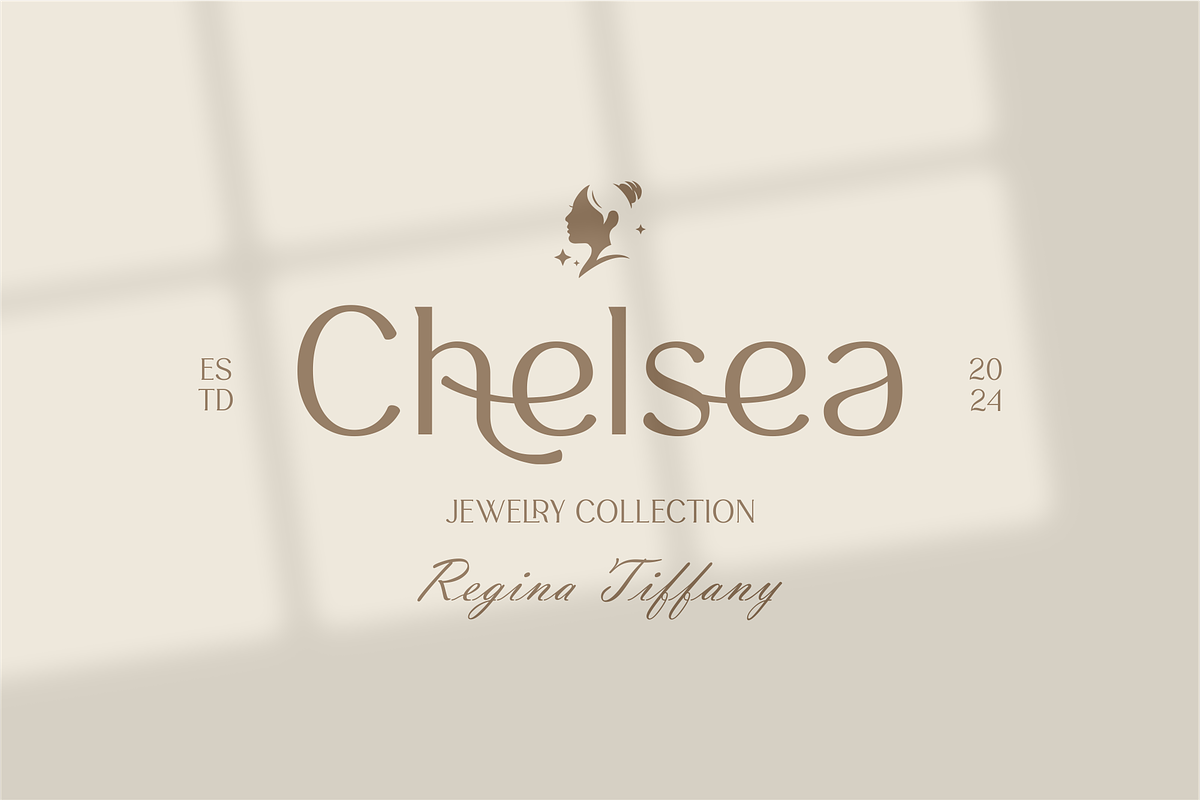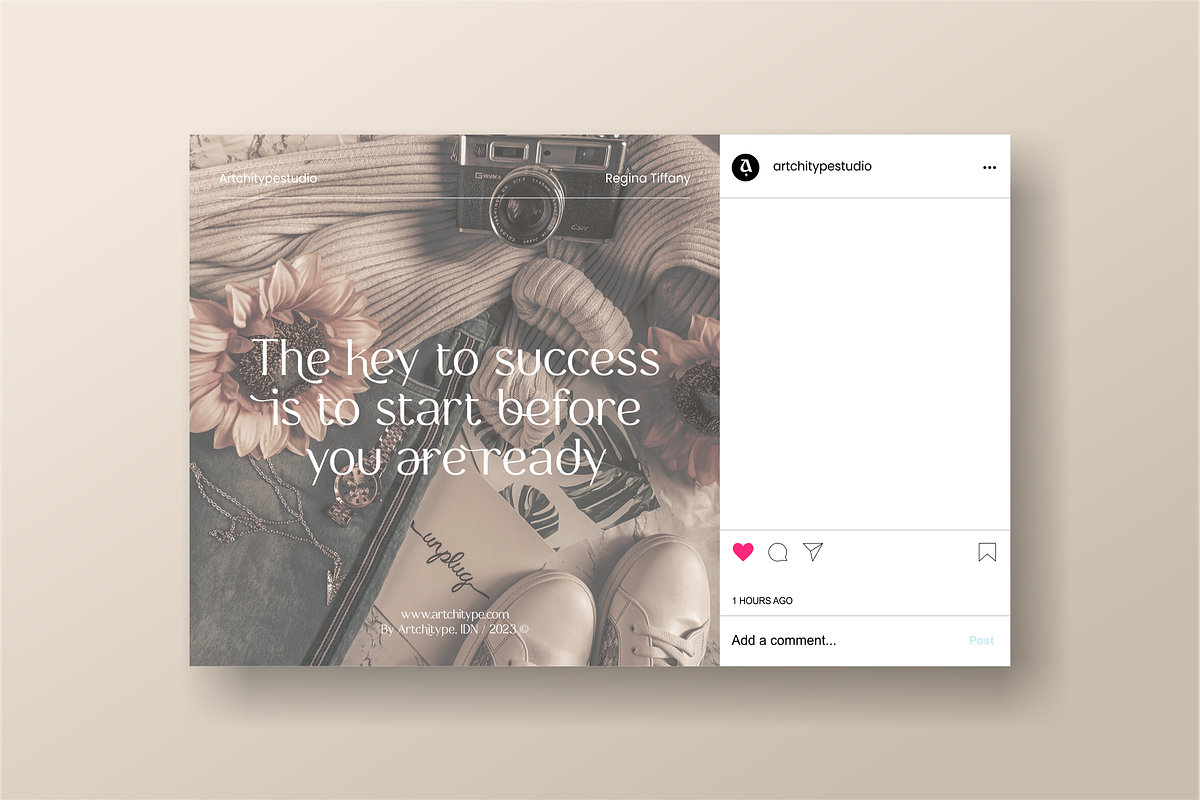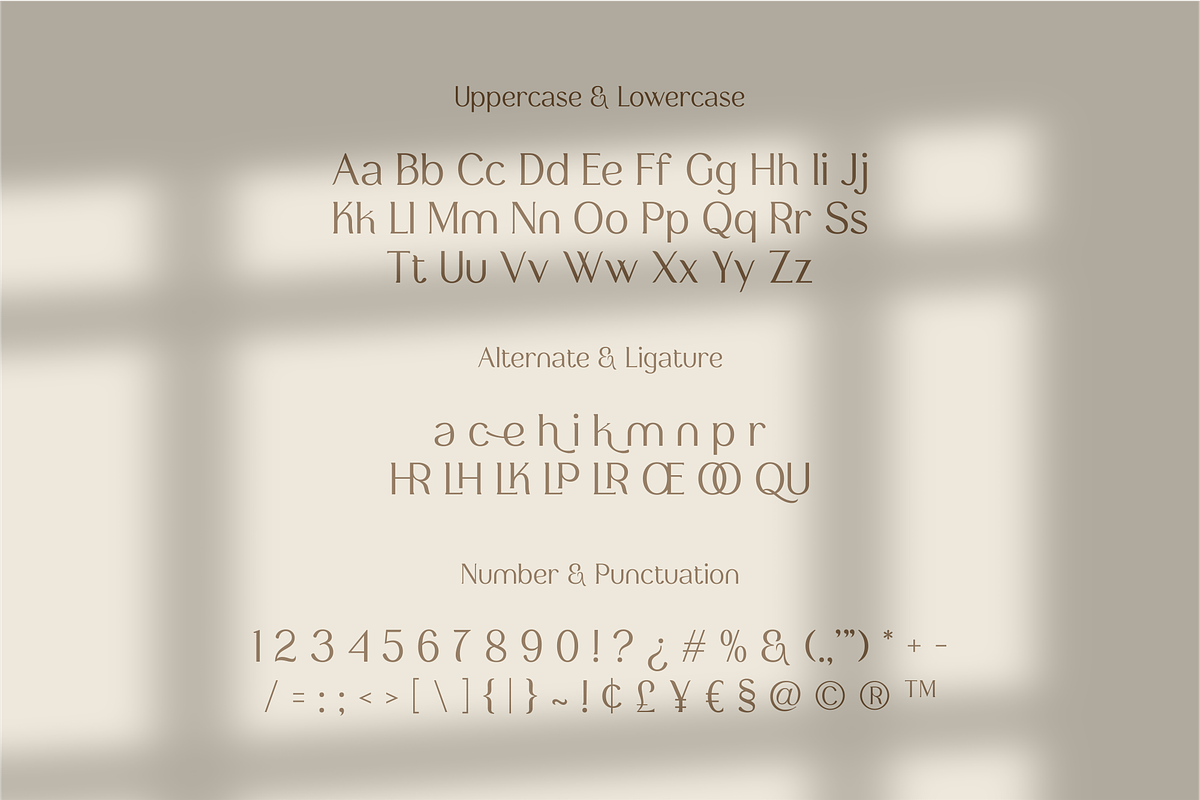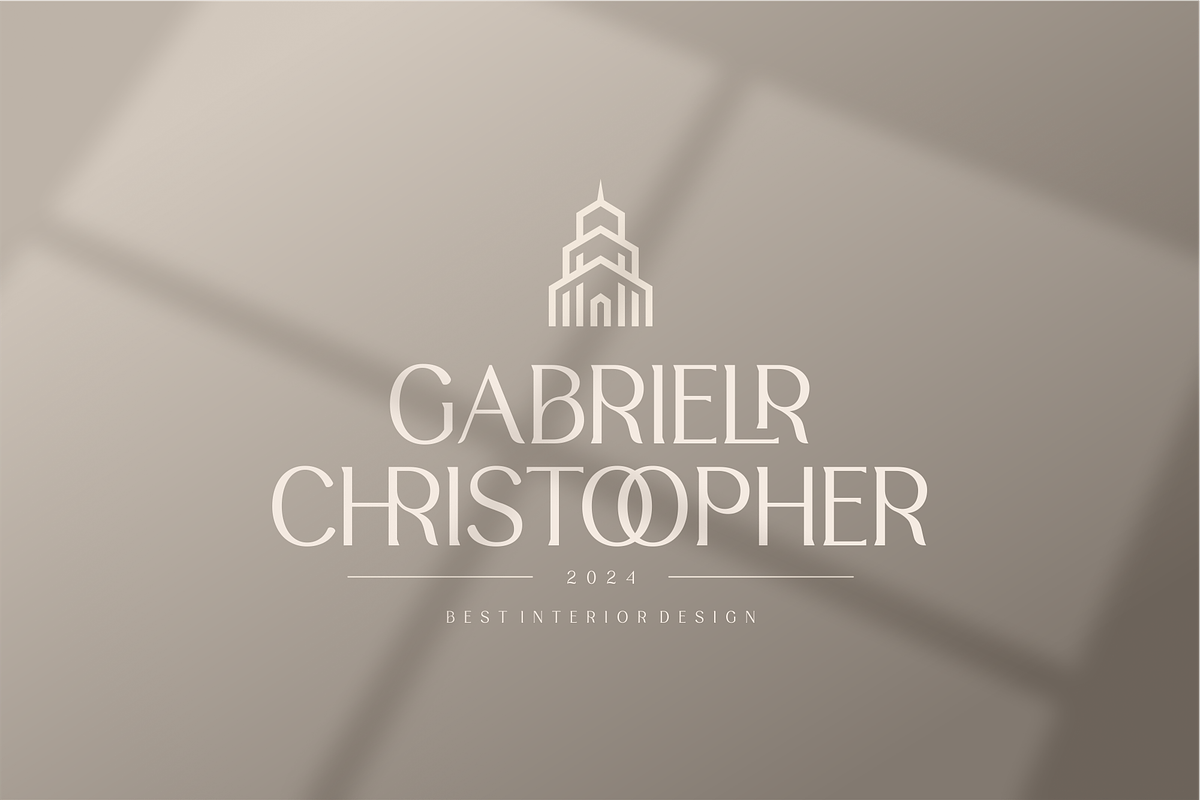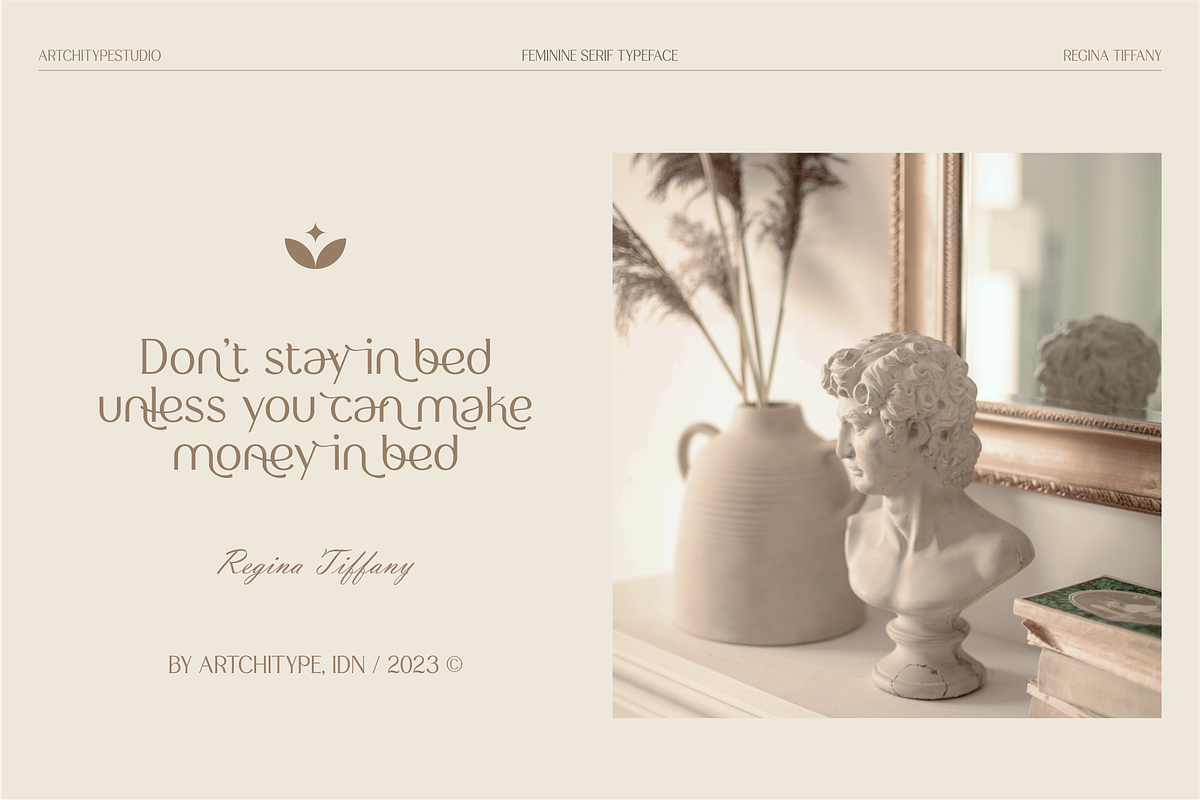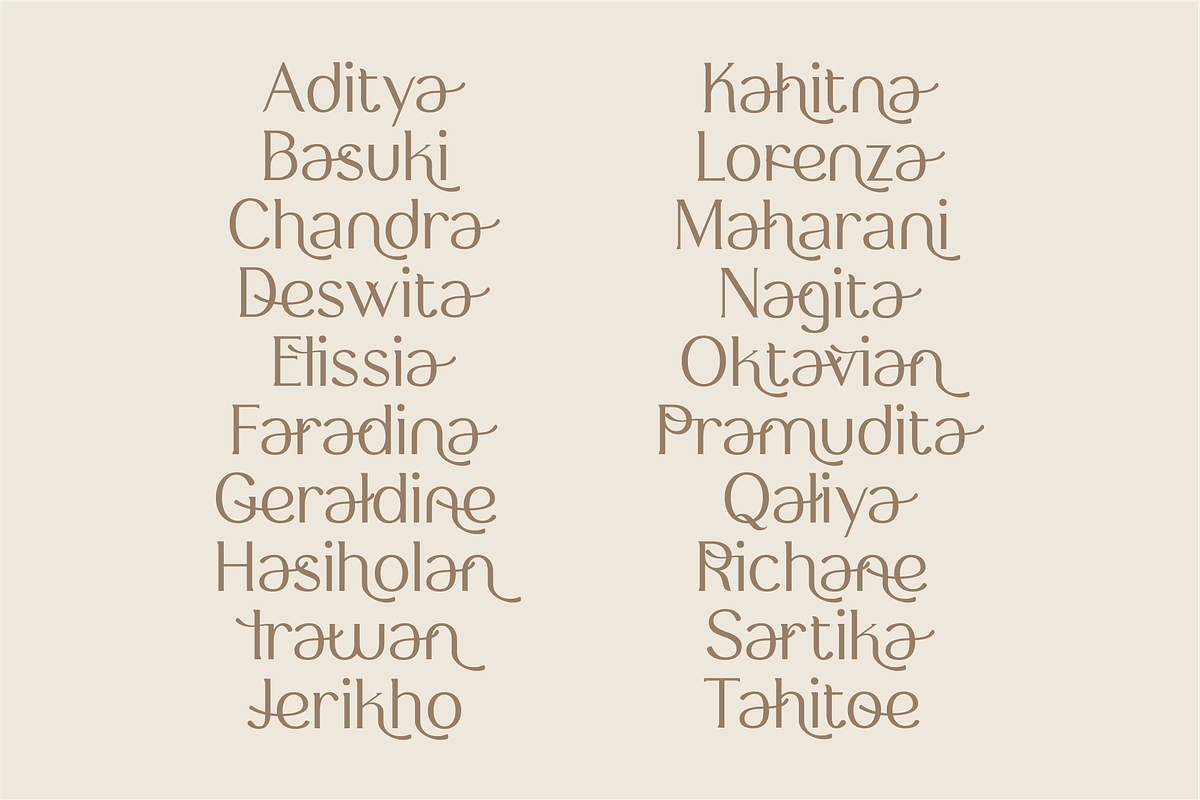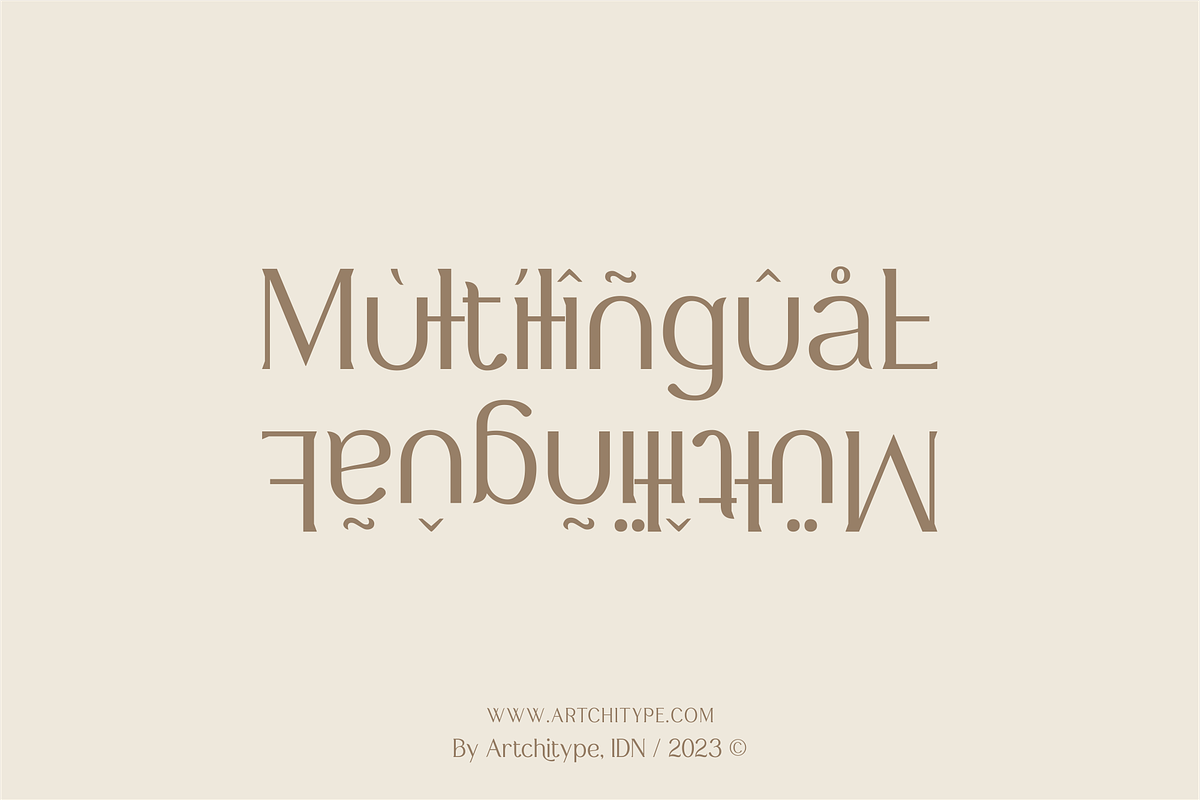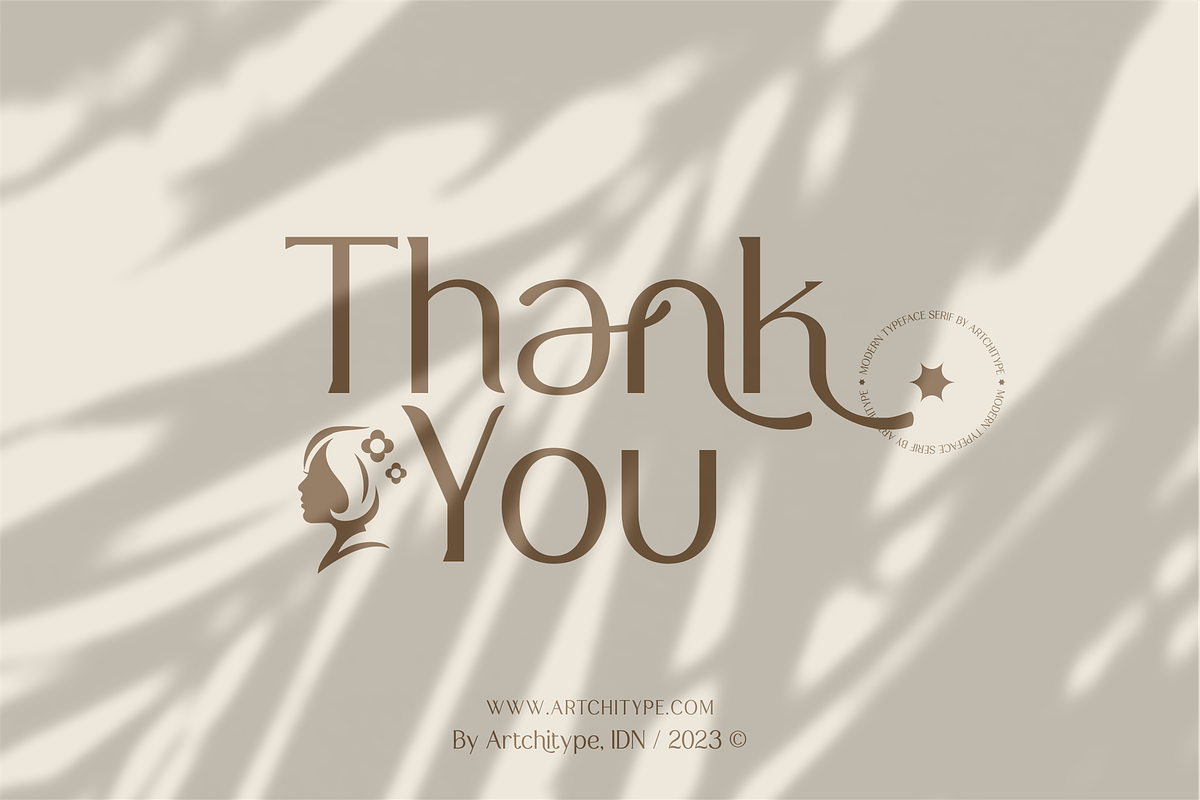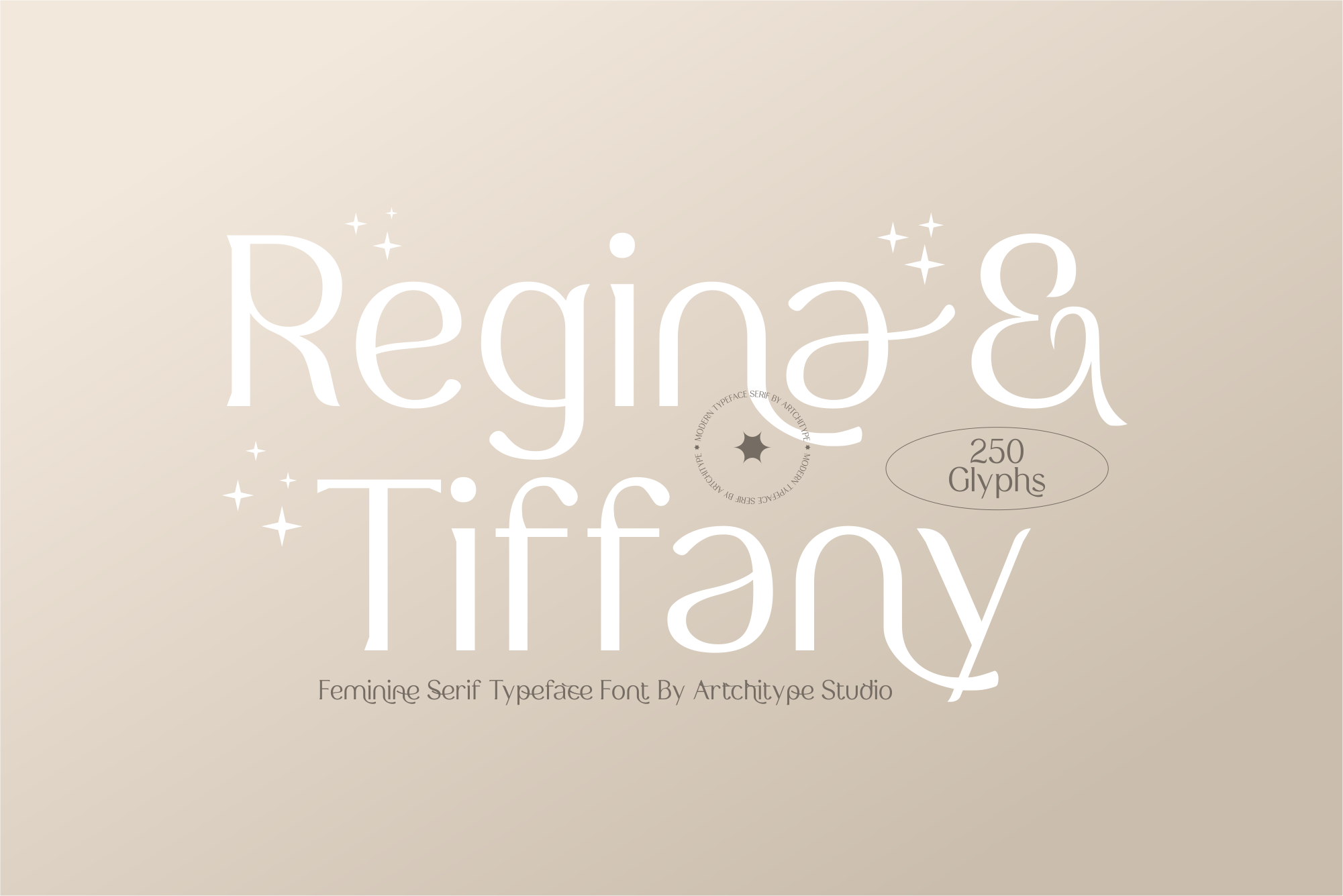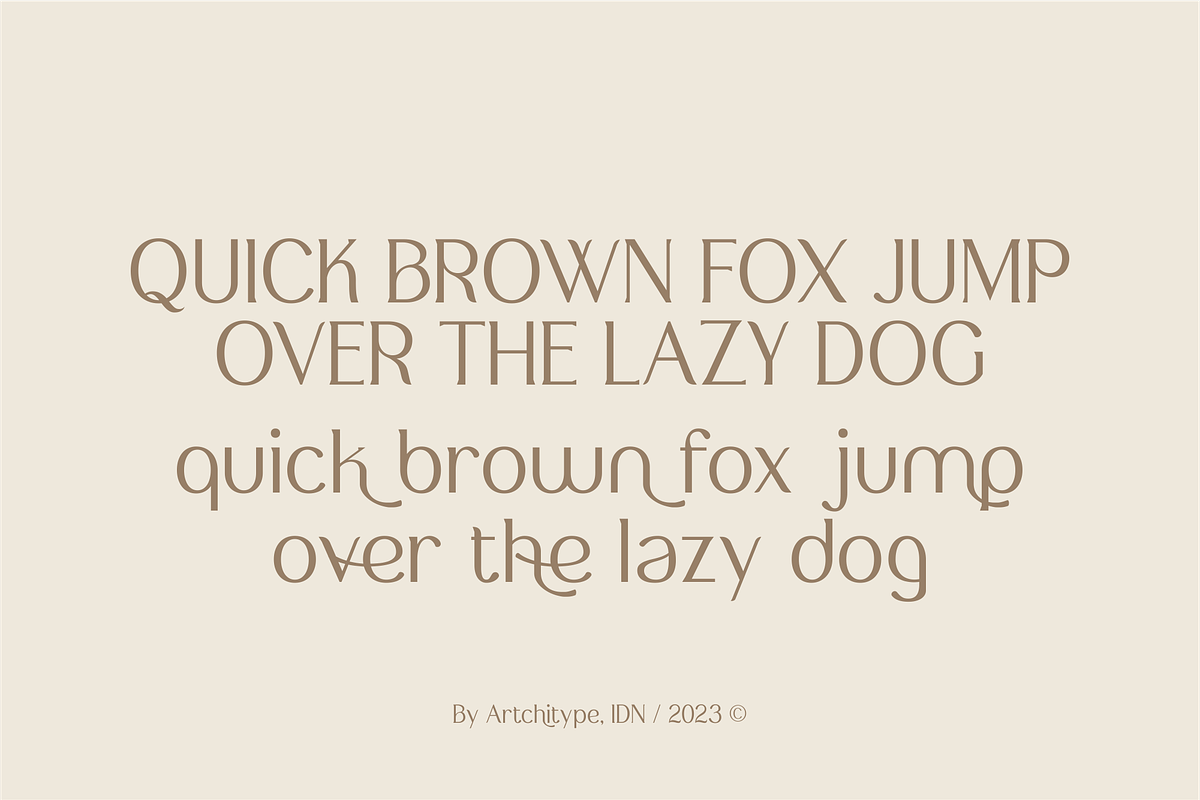
Regina Tiffany - Serif Typeface
Regina Tiffany is classy display sans serif font with 280+ characters. Includes uppercase, lowercase characters, multilingual, alternates and most common other characters.
Regina Tiffany is perfect for logos, social media posts, product packaging, product designs, and other projects.